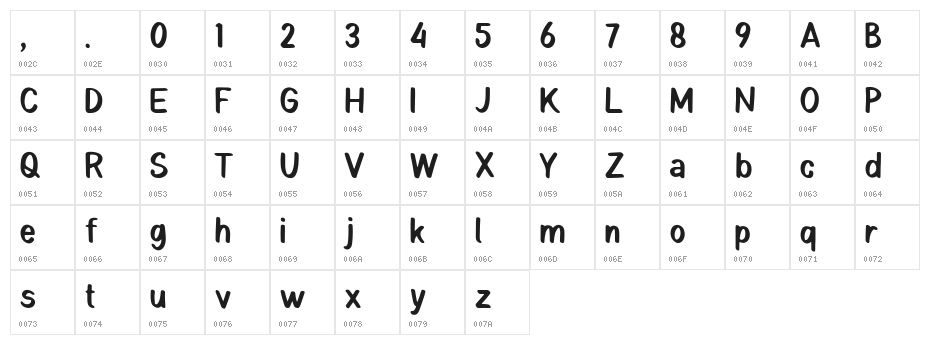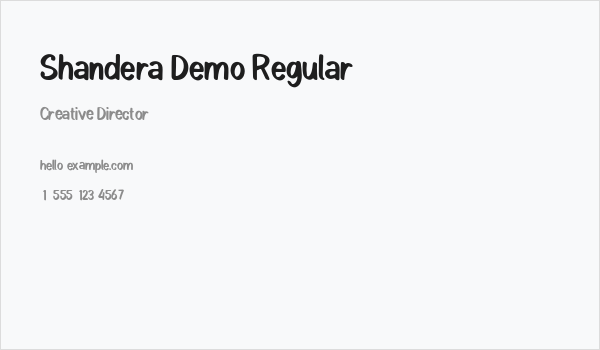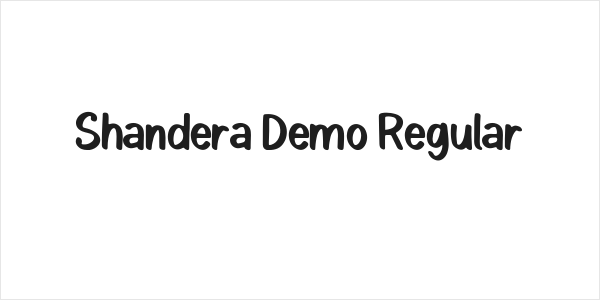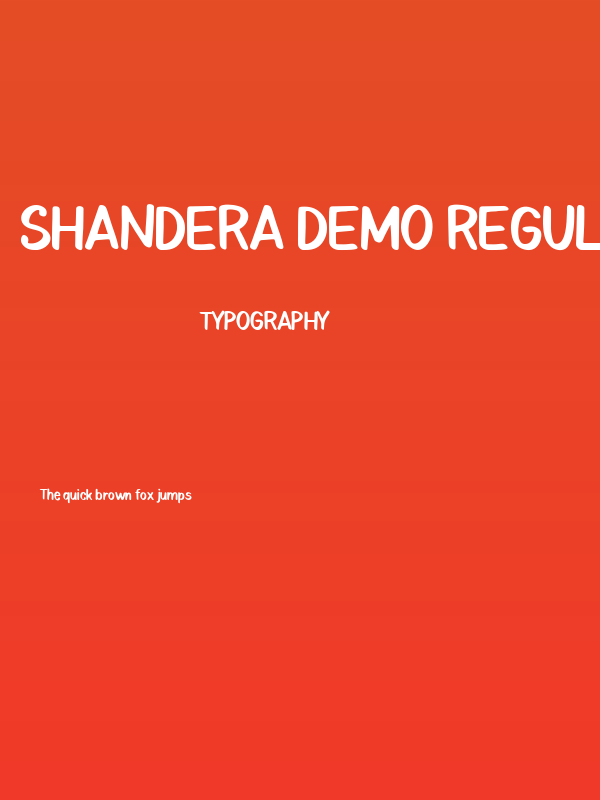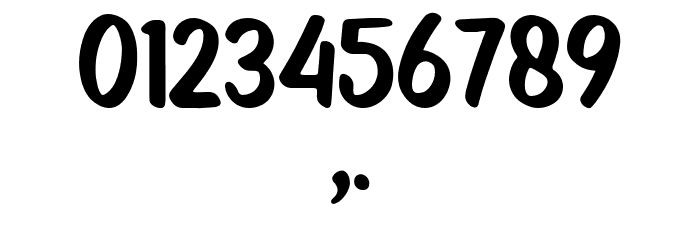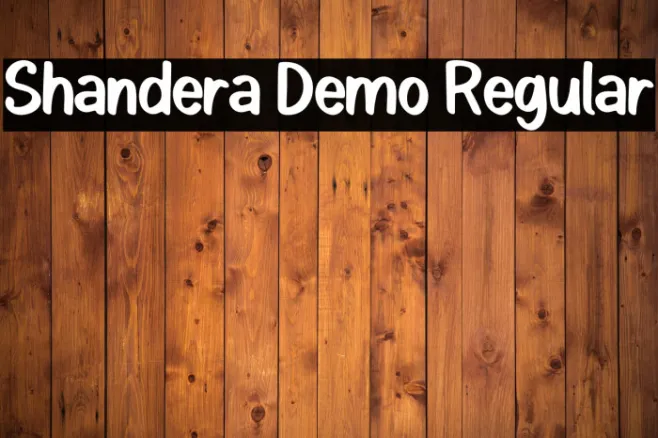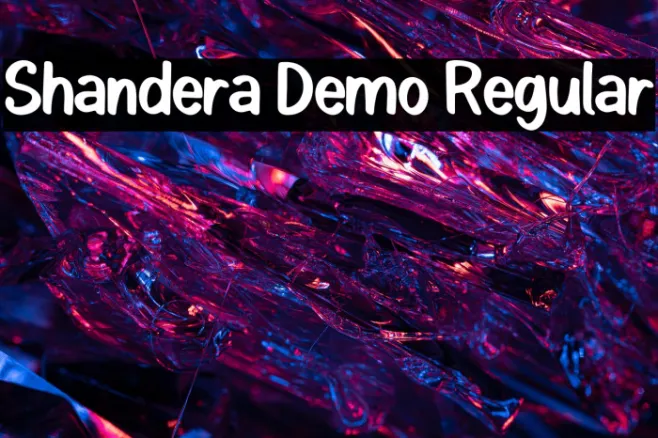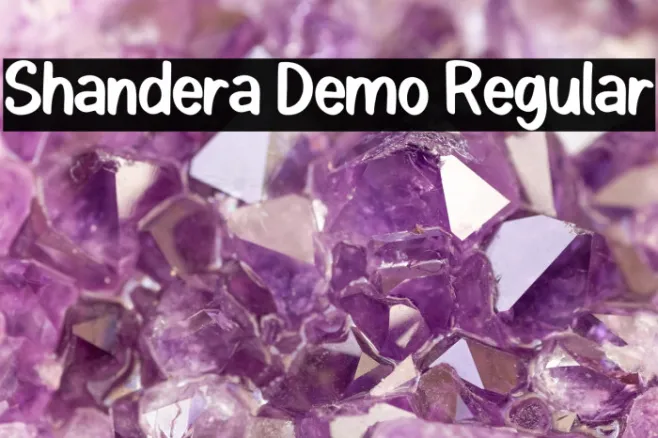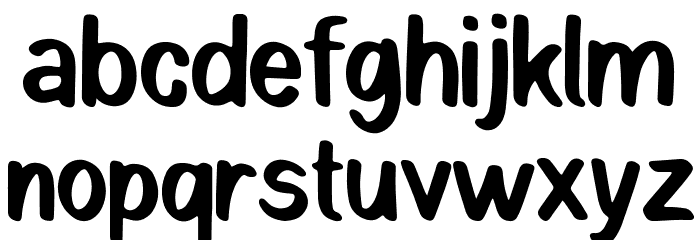
Shandera Demo Regular Font
Shandera Demo Regular Description
This font features a playful and rounded style with a handwritten appearance. The characters are bold and slightly irregular, giving them a friendly and approachable feel. The uppercase and lowercase letters maintain a consistent weight, while the numbers and punctuation follow the same design ethos. The strokes are smooth and uniform, contributing to the overall casual and informal look. This font is ideal for projects that require a personal touch or a fun, engaging aesthetic.
| Proposed Projects | Ideal for children's books, greeting cards, playful branding, and casual invitations. |